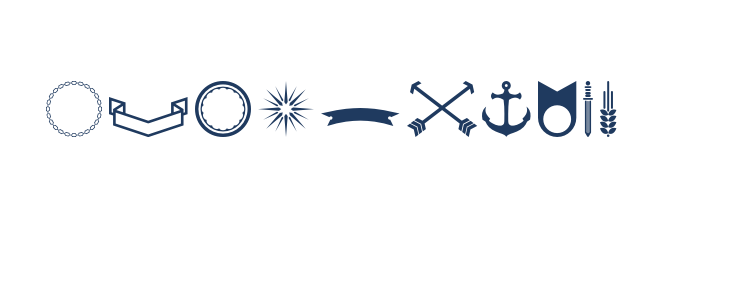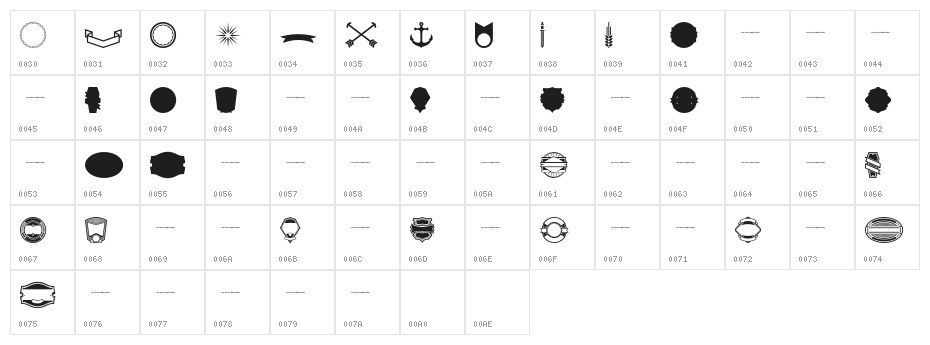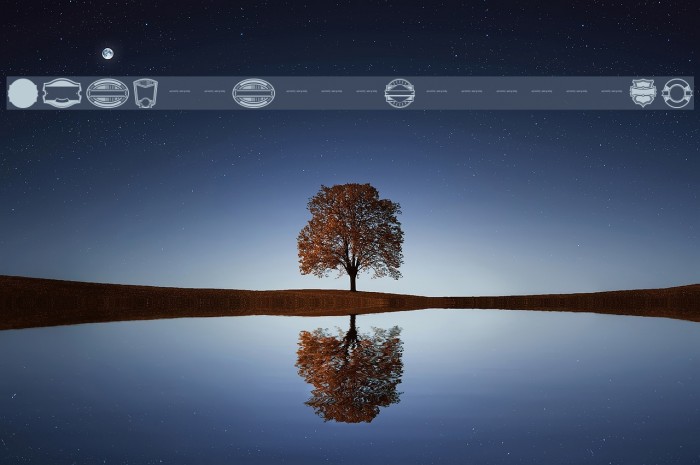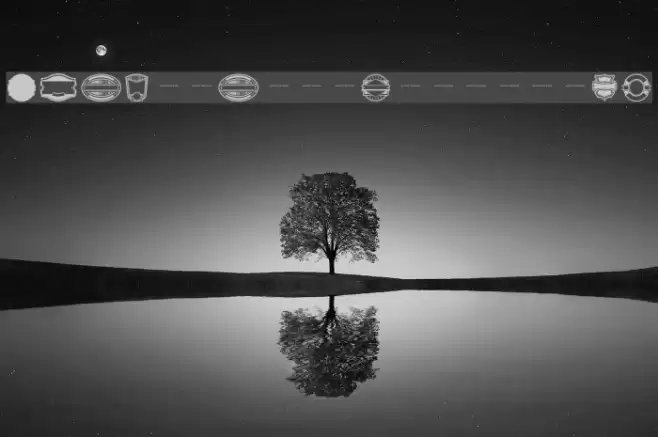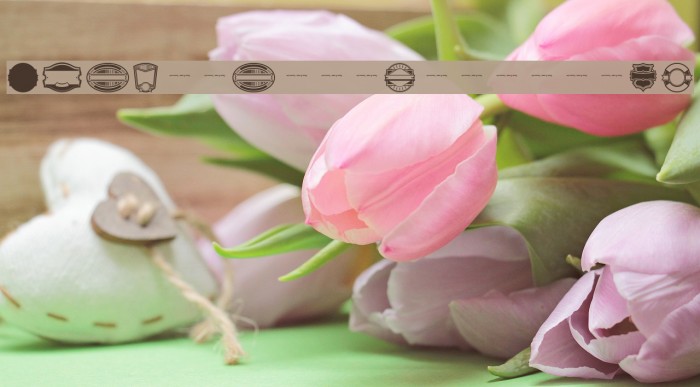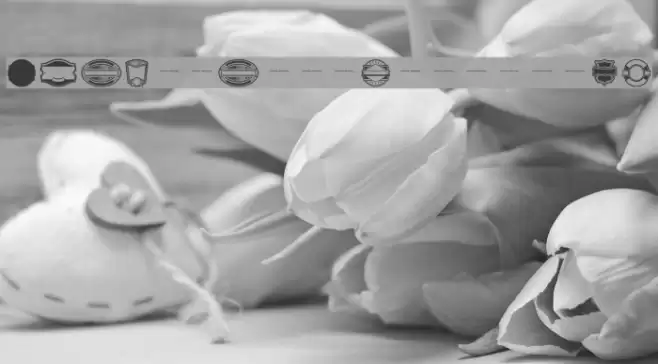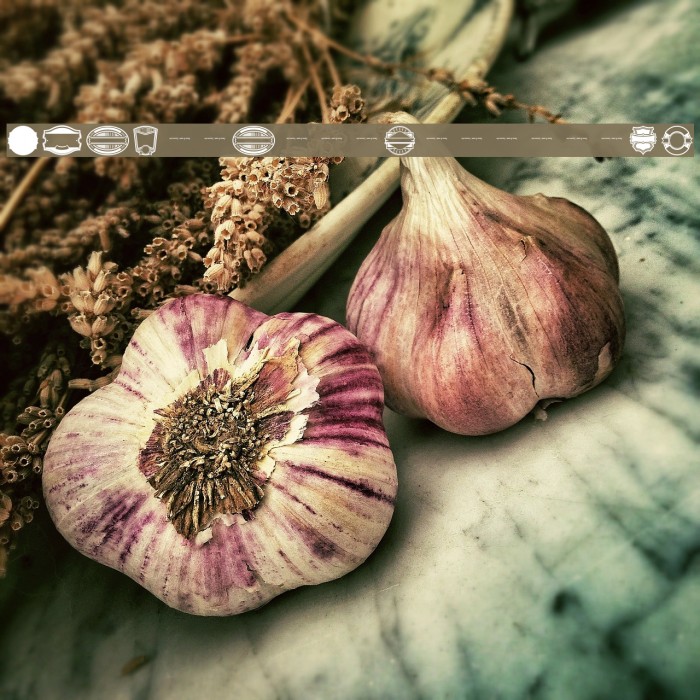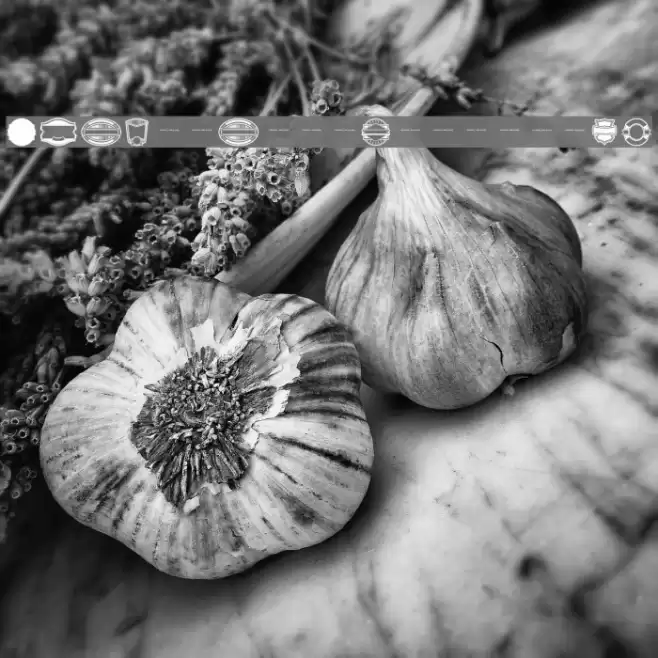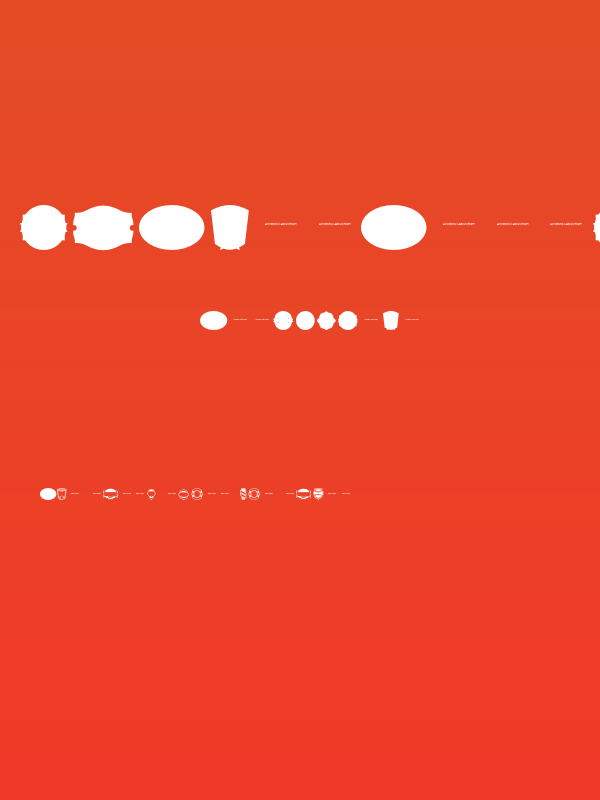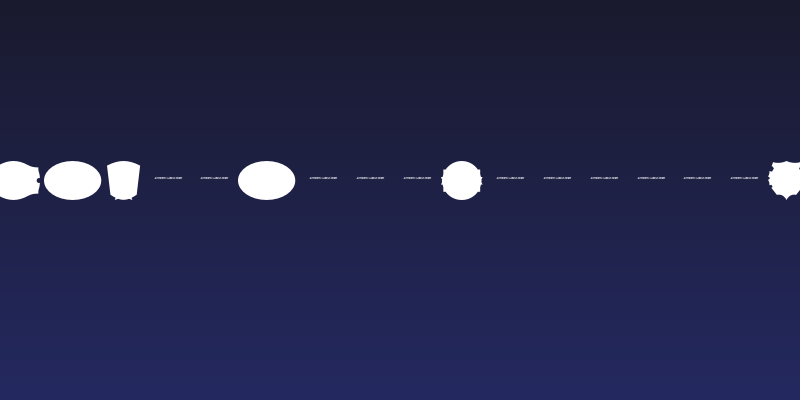
AuthenticLabelsDemo Font
AuthenticLabelsDemo Description
A collection of decorative label, badge, and emblem vector shapes with a vintage and handcrafted aesthetic, featuring a variety of outlines, shields, ribbons, and ornamental icons suitable for branding and design embellishments.
| Overall Style | Vintage, Decorative |
| Use Case | Logos, Labels, Badges, Packaging |
| Proposed Projects | Logo design, packaging, product labels, branding, retro posters, and craft projects. |